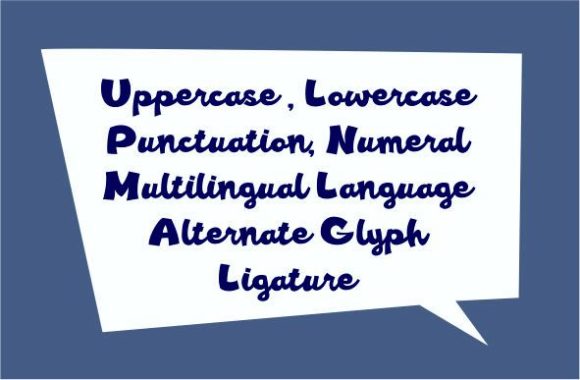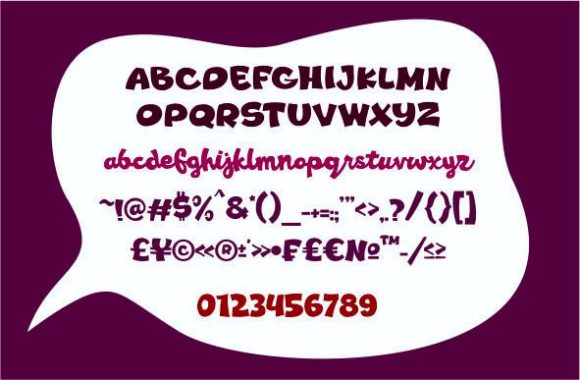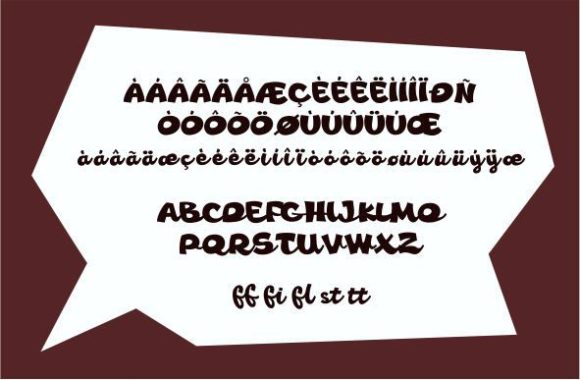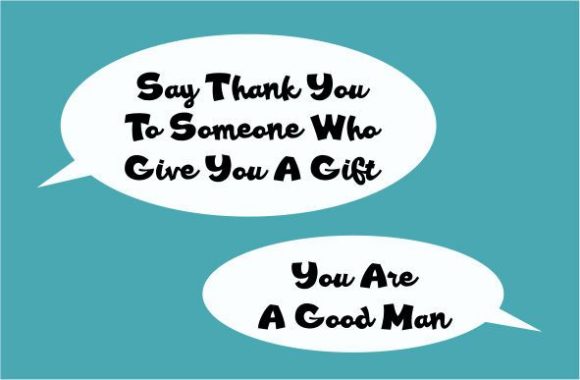
Introduction to Ramesgo Font
As designers, we’ve all been there – staring at a blank canvas, desperately seeking the perfect font to bring our creative vision to life. And then, it happens – a spark of inspiration strikes, and we stumble upon the perfect font to elevate our project. For those of you who’ve been searching for that elusive font, we’re excited to introduce you to Ramesgo Font, a game-changing display font that’s about to revolutionize your design workflow.
With its bold, yet sophisticated design, Ramesgo Font is a masterclass in typography. Featuring chunky and extended characters, this font is a design resource that’s sure to make your logos, branding, and packaging design stand out from the crowd. And the best part? It’s available for a free download, making it a valuable addition to any designer’s toolkit.
Key Features of Ramesgo Font
- Unique, hand-drawn design style with a transparent background, perfect for creative projects that require a touch of elegance.
- Perfect for use in creative projects, such as branding, packaging, and editorial design, where a unique and sophisticated font is required.
- OpenType features, including ligatures and swashes, add an extra layer of creativity and flexibility to the font.
Honest Review: Ramesgo Font
As a designer, I’ve had the chance to work with many fonts, but the Ramesgo Font has left a lasting impression on me. The font’s clean and modern design makes it a perfect fit for any creative project, whether it’s a logo, branding, or even a simple graphic. The high quality of the font is evident in its crisp lines and well-balanced typography.
One of the standout features of the Ramesgo Font is its transparent background, which allows for seamless integration into any design. The font is also available for free download, making it an excellent resource for designers on a budget. I appreciate the convenience of having access to a high-quality font without breaking the bank.
What works well with the Ramesgo Font: ✨
- Clean and modern design
- High quality typography
However, there are some limitations to consider: ⚠️
- May not be suitable for serif-based designs
- Limited font sizes and styles available
Overall, I’m impressed with the Ramesgo Font and would highly recommend it to fellow designers. Its versatility and high quality make it a valuable resource for any creative project.
The Ramesgo Font is ideal for creative projects such as logos, business cards, and brochures. Its high-quality design makes it perfect for presentations, reports, and other documents where a professional look is required.